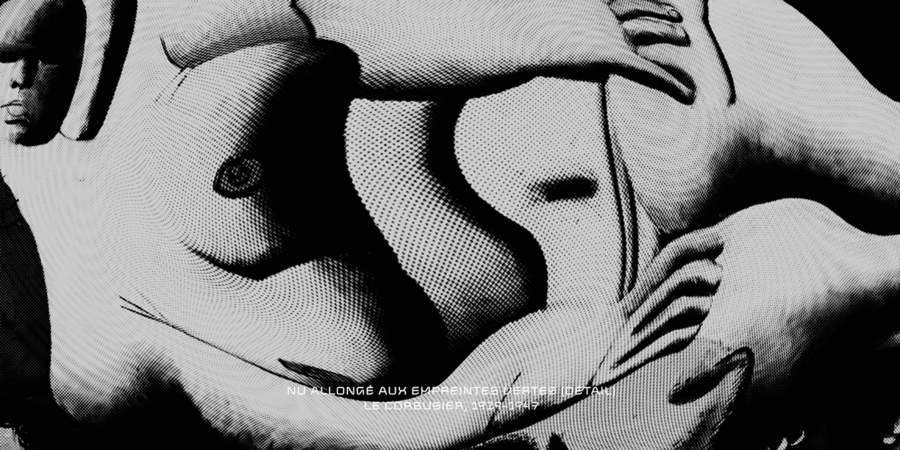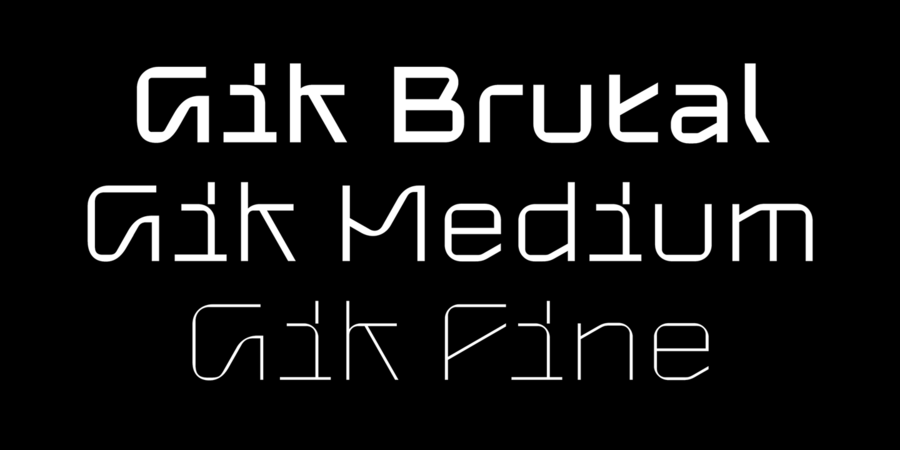
Gik is sans serif font family with modular aesthetic and the elegance of contemporary typography. Its compositional and plastic solution combines echoes of (de)constructivism, brutalism, de Stijl and other manifestations of 20th century antiquity + techniques characteristic of italics. But this does not make the font old-fashioned – on the contrary, it helps to understand how to use it.
Gik is a product of the metamodernism era – it is on the border between modernist enthusiasm and postmodernist mockery, between simplicity and awareness, wholeness and cleavage, clarity and ambiguity – a kind of conceptual oxymoron. Looking at Gik, you could imagine it at Fashion Week, if there was one for typography. Gik has a message for both the designer and the viewer, it stimulates the imagination, it is the anthology of all fonts of the future. The typeface was designed by Denis Serebryakov in 2022.